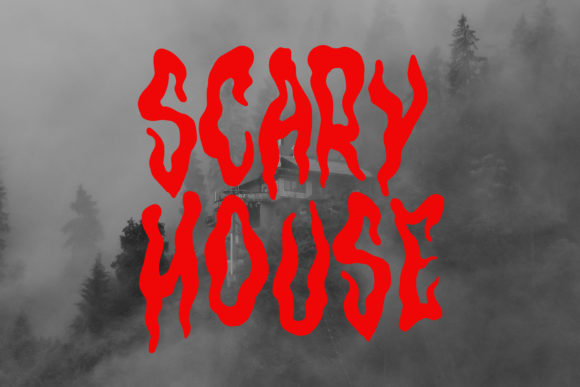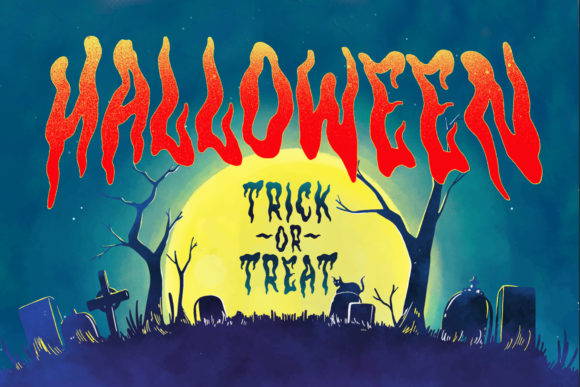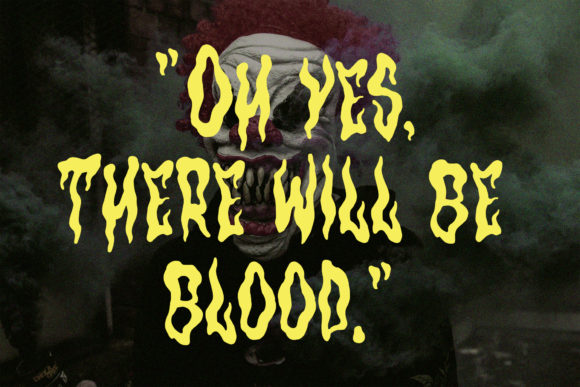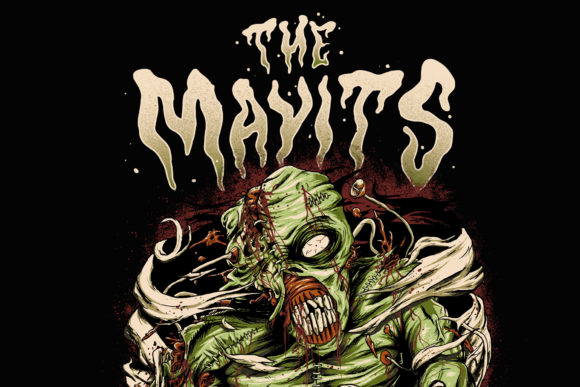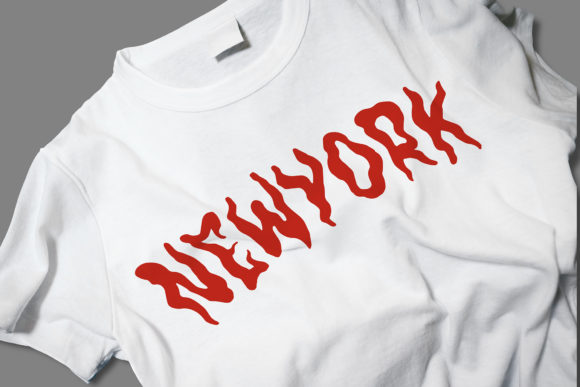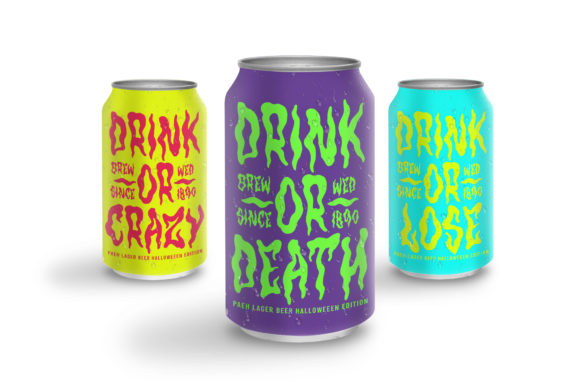
Unleash the Spooky Charm with Hantu Font: Elevate Your Designs to New Heights
In the world of design, typography plays a crucial role in conveying the tone and personality of a project. When it comes to adding a touch of spookiness and intrigue, a unique display font can make all the difference. This is where Hantu Font comes in – a distinctive and eye-catching typeface that’s perfect for designers and crafters looking to infuse their creations with a sense of eeriness and mystique.
What is Hantu Font?
Hantu Font is a one-of-a-kind display font that’s designed to add a spooky touch to your designs. The name “Hantu” is derived from the Malay word for “ghost” or “spirit,” which aptly reflects the font’s eerie and mystical vibe. With its unique and captivating design, Hantu Font is ideal for a wide range of projects, from branding and headings to wedding designs, invitations, signatures, logos, labels, and more.
Key Features of Hantu Font
So, what makes Hantu Font so special? Here are some of its key features:
- Unique Design: Hantu Font boasts a distinctive and original design that’s sure to grab attention. Its quirky and irregular shapes add a touch of whimsy and playfulness to your designs.
- Spoppy Touch: As its name suggests, Hantu Font is perfect for adding a spooky touch to your designs. It’s ideal for Halloween-themed projects, horror movie posters, and other spooky endeavors.
- Versatility: Hantu Font is incredibly versatile and can be used for a wide range of design projects, from elegant wedding designs to bold branding and logos.
How to Use Hantu Font in Your Designs
Using Hantu Font in your designs is easy and straightforward. Here are some tips to get you started:
- Pair it with Other Fonts: Hantu Font pairs well with other fonts, especially sans-serif and script fonts. Experiment with different combinations to find the perfect look for your project.
- Use it for Headings: Hantu Font is perfect for headings and titles, where its unique design can really shine.
- Add a Spooky Touch: Use Hantu Font to add a spooky touch to your designs, whether it’s for Halloween, a horror movie poster, or a creepy-themed party invitation.
- Experiment with Colors: Hantu Font looks great in a range of colors, from bold and bright to muted and pastel. Experiment with different colors to find the perfect look for your project.
Benefits of Using Hantu Font
So, why should you use Hantu Font in your designs? Here are some benefits:
- Stand Out from the Crowd: Hantu Font is a unique and eye-catching typeface that’s sure to make your designs stand out from the crowd.
- Add a Touch of Personality: Hantu Font adds a touch of personality and whimsy to your designs, making them more engaging and memorable.
- Perfect for Spooky-themed Projects: Hantu Font is perfect for spooky-themed projects, such as Halloween designs, horror movie posters, and creepy-themed party invitations.
In conclusion, Hantu Font is a unique and eye-catching display font that’s perfect for designers and crafters looking to add a spooky touch to their creations. With its quirky and irregular design, Hantu Font is sure to grab attention and elevate your designs to new heights. Whether you’re working on a branding project, wedding design, or spooky-themed party invitation, Hantu Font is the perfect choice. So why not give it a try and see the magic for yourself?
Get ready to unleash the spooky charm with Hantu Font!